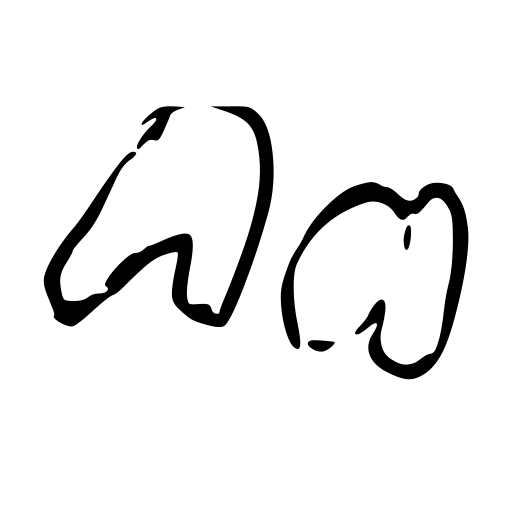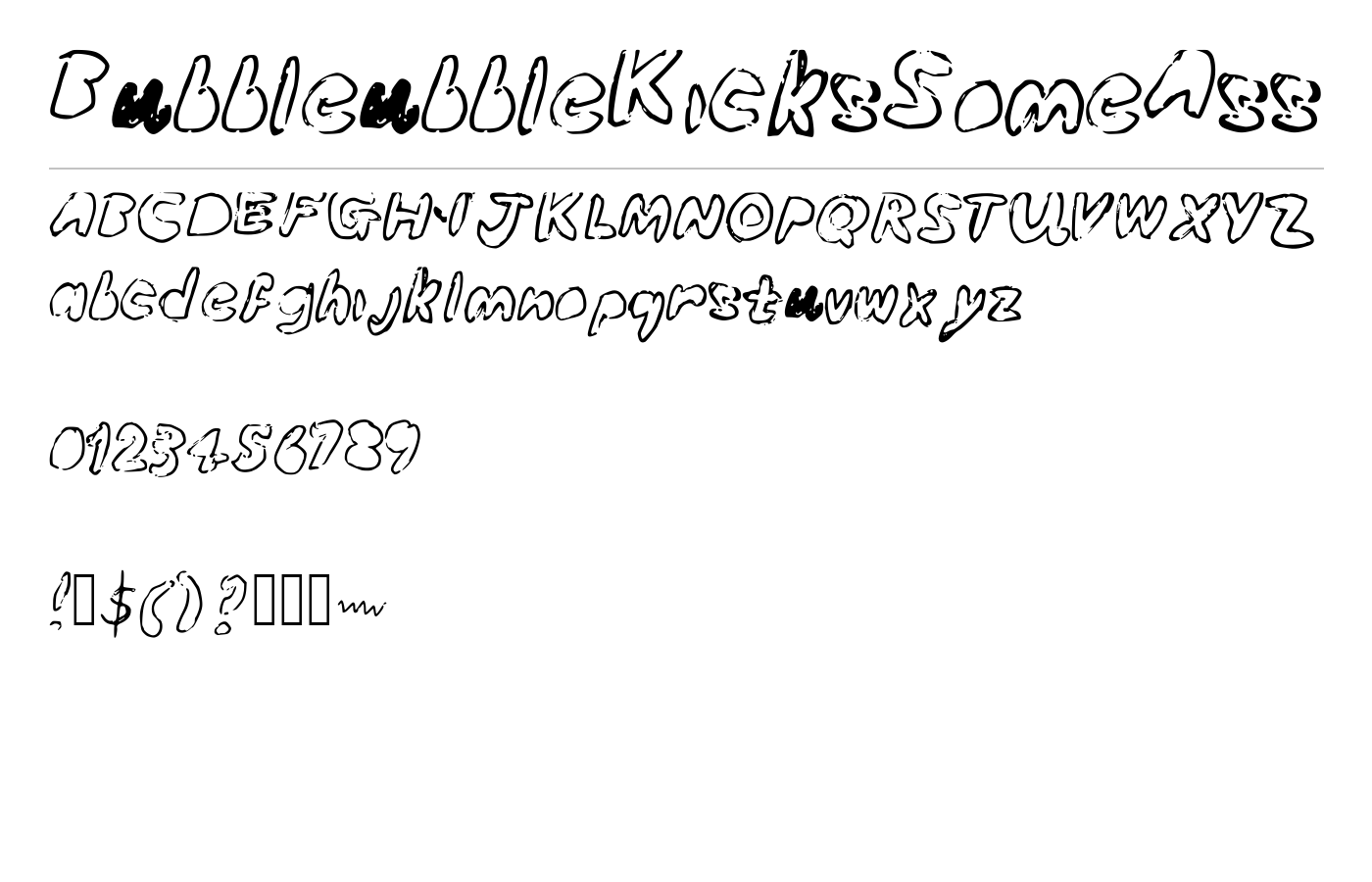
BubbleubbleKicksSomeAss is a playful, hand-drawn sans serif font featuring irregular, bubbly letterforms with a lively, sketch-like texture. Its casual and quirky style makes it ideal for creative projects, kids’ designs, or branding that wants to convey fun and energy in a unique, informal way.
BubbleubbleKicksSomeAss Font